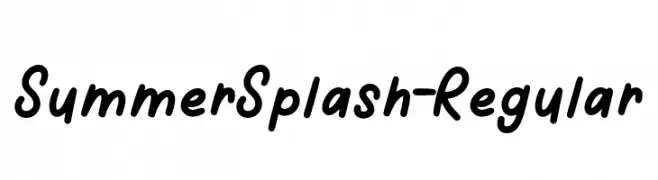
A playful, splash-themed decorative font with bold, rounded characters.
A playful, handwritten-style font with smooth, rounded edges and a casual feel.